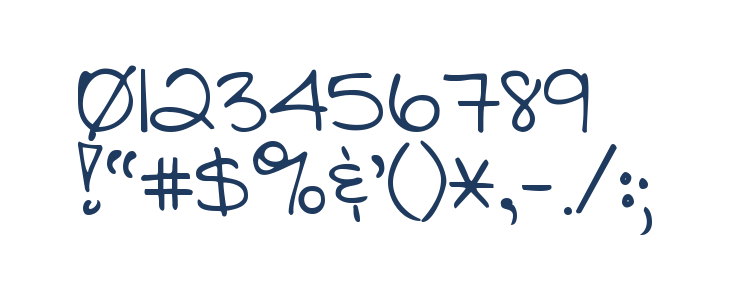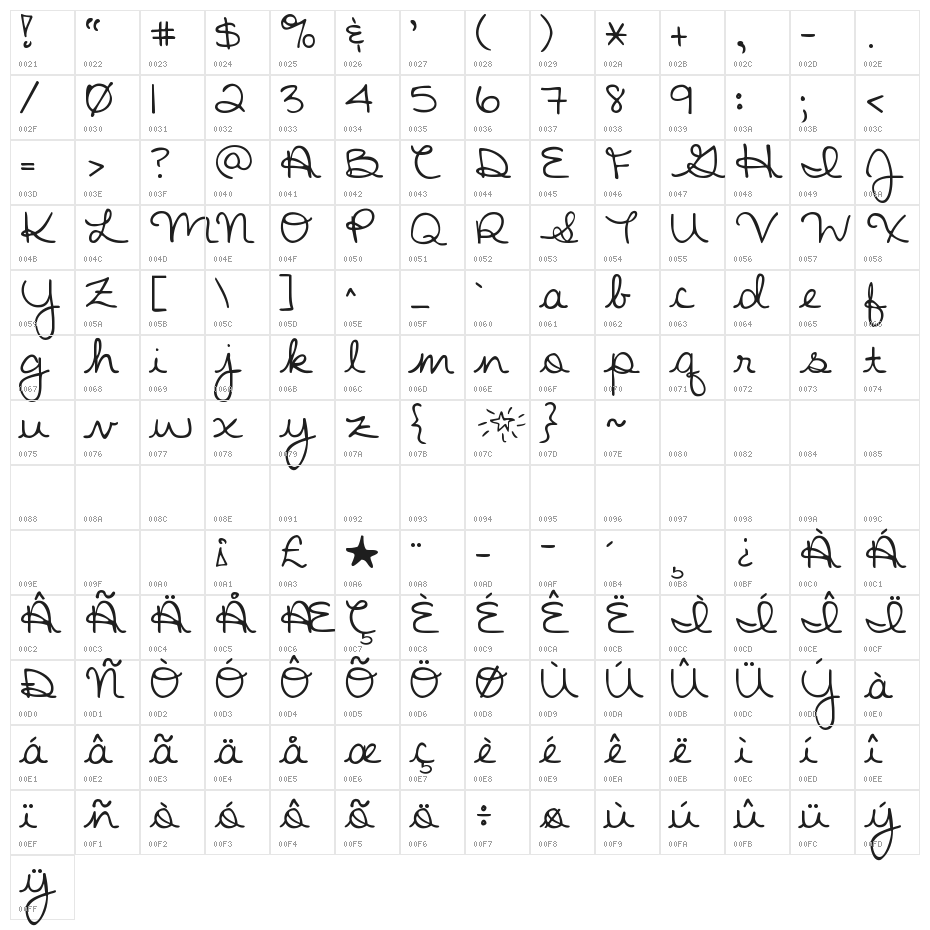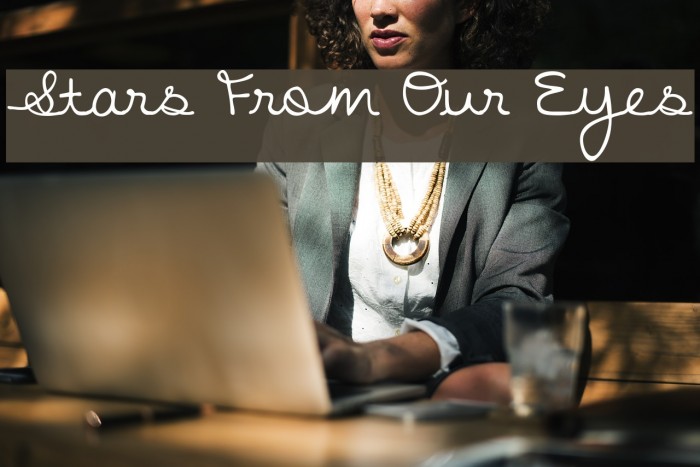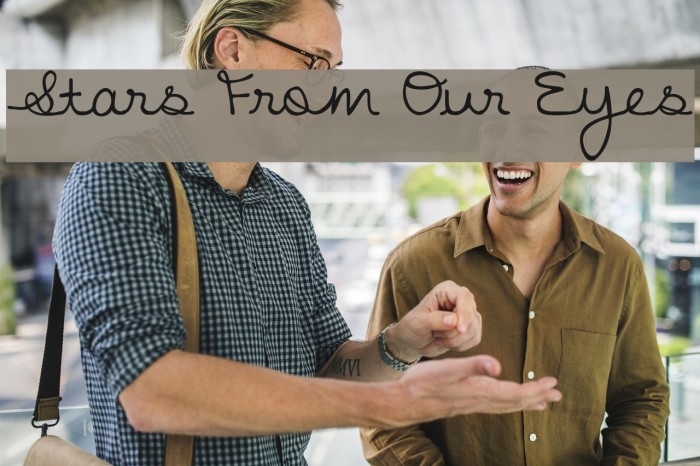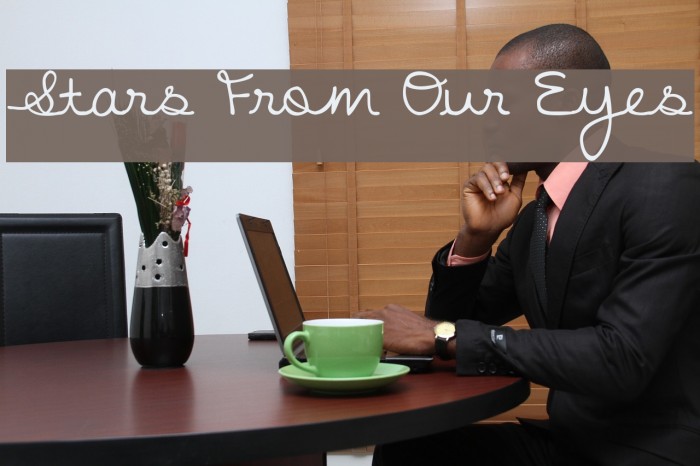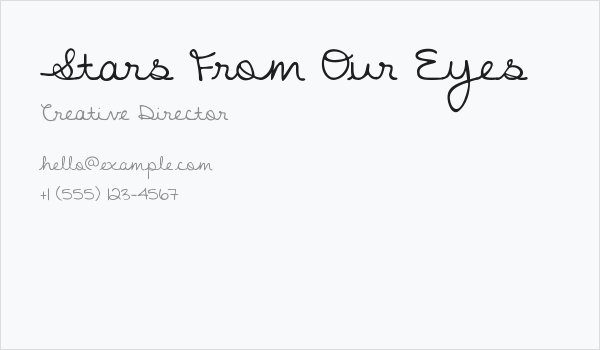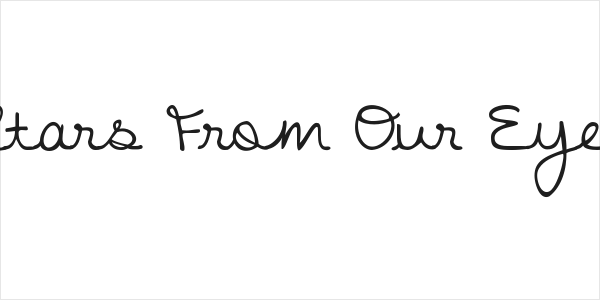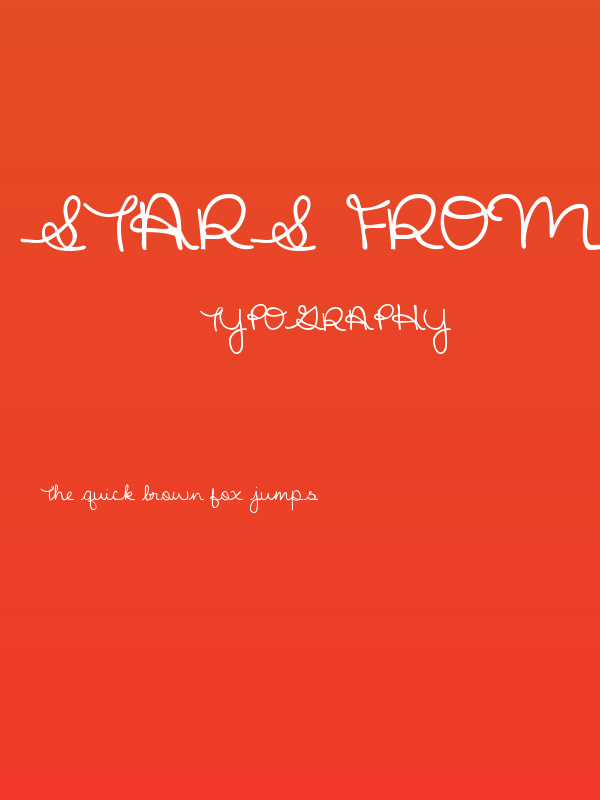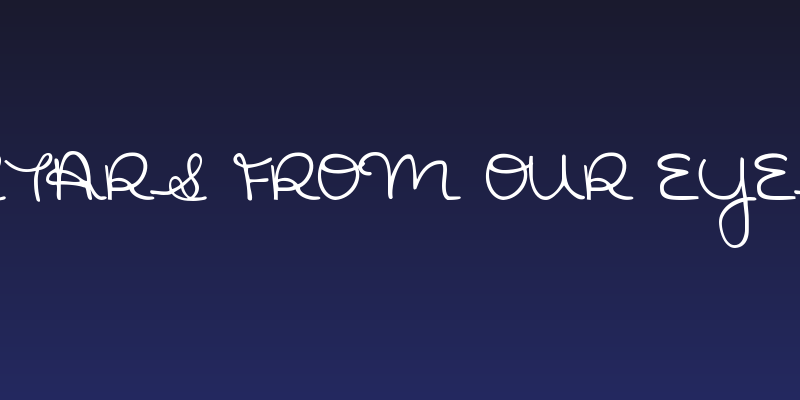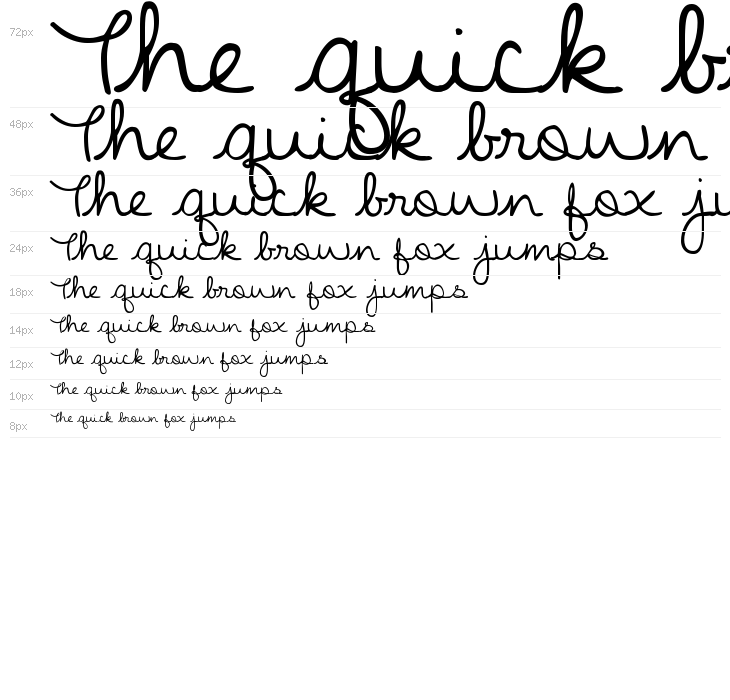
Stars From Our Eyes Font
Stars From Our Eyes Description
This font features a playful and whimsical handwritten style, characterized by its fluid and connected letterforms. The uppercase letters maintain a consistent height with a slight slant, while the lowercase letters exhibit a more pronounced cursive flow. The numerals are bold and rounded, complementing the overall casual aesthetic. Special characters are creatively integrated, maintaining the font's lively and informal tone. The strokes are uniform in thickness, providing a balanced and harmonious appearance.